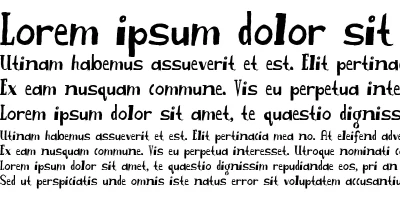
Lecheet Free Download
Lecheet Font Free Download
Lecheet Font is perfect for contemporary design studios, modern tech startups, innovative product branding, cutting-edge advertising campaigns, digital media companies, progressive architecture firms, creative agency communications, experimental art projects, futuristic interface designs, avant-garde fashion labels, creative portfolio layouts, and forward-thinking brand identities. This distinctive typeface excels in applications requiring creative innovation and modern sophistication, making it ideal for design agencies, technology companies, creative professionals, and brands seeking to establish distinctive visual identities.
What makes Lecheet Font exciting is its unique blend of creative experimentation and refined sophistication that pushes typographic boundaries. The font features innovative letterforms with distinctive character shapes and creative flourishes that set it apart from conventional typefaces. Its carefully balanced proportions and modern aesthetic create a perfect fusion of artistic expression and functional readability. The font's distinctive personality captures the spirit of creative innovation and contemporary design thinking, making it perfect for brands seeking to establish cutting-edge identities while maintaining professional credibility.
The Lecheet Font family typically includes multiple weights such as Light, Regular, Medium, Bold, and Black variations, along with their corresponding italic styles. Many collections also feature experimental alternates, creative ligatures, and innovative character variations that enhance the font's distinctive character. Some comprehensive packages include decorative elements, artistic symbols, and special glyphs that provide complete creative flexibility for experimental design projects and innovative brand communications.
Lecheet Font Free Download represents the perfect fusion of creative innovation and typographic excellence. This remarkable typeface brings instant creativity and modern appeal to any project, making it particularly valuable for design agencies, creative studios, and innovative brands seeking to differentiate themselves through distinctive typography. The font's versatile nature allows it to perform beautifully in both bold display applications and sophisticated text settings.
Designers appreciate Lecheet Font for its ability to transform ordinary communications into compelling creative statements that capture attention and inspire engagement. The font's technical excellence ensures smooth performance across various digital and print applications, while its innovative appeal adds immediate creative authenticity to any design project. The comprehensive character set includes standard Latin characters, numerals, punctuation marks, and special symbols, making it suitable for creative communications, artistic publications, and diverse innovative applications.
This exceptional typeface successfully combines creative experimentation with functional excellence, offering designers a powerful tool for creating memorable and impactful communications that resonate with audiences seeking distinctive design solutions and innovative visual experiences.